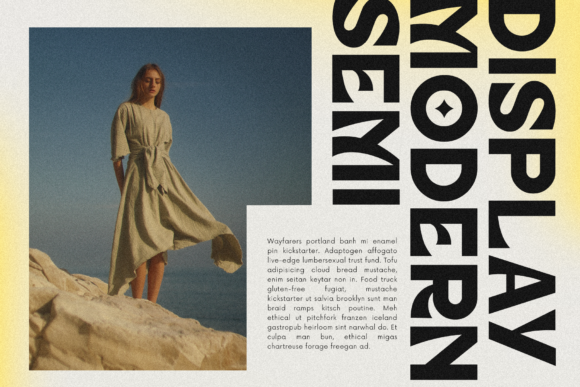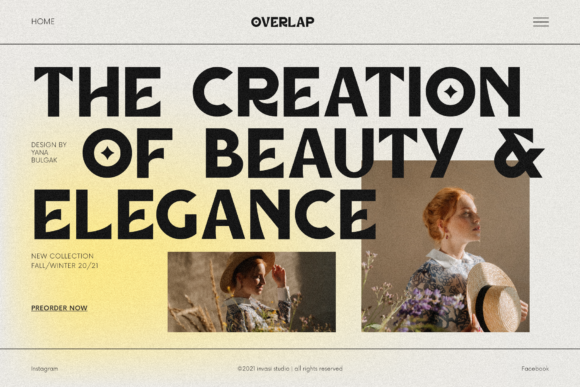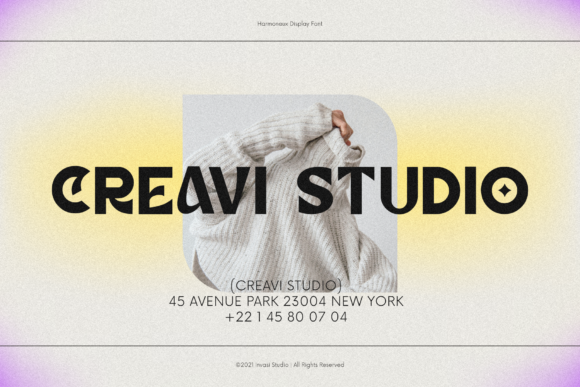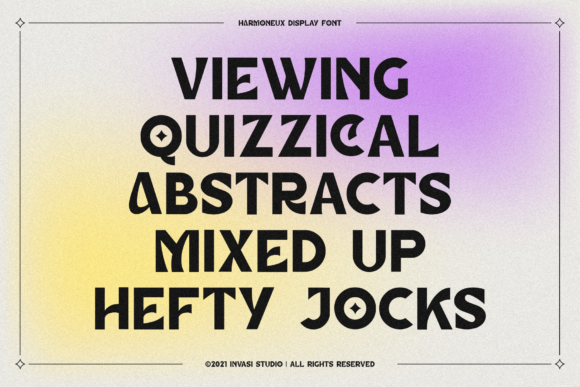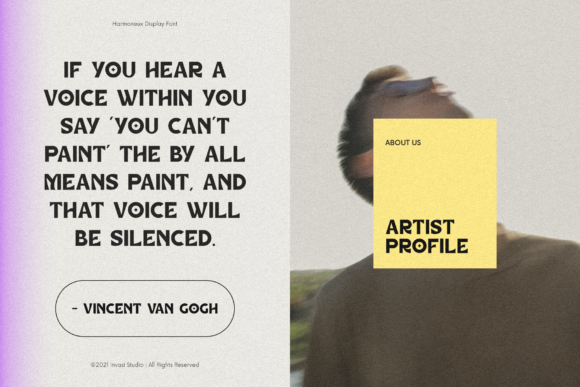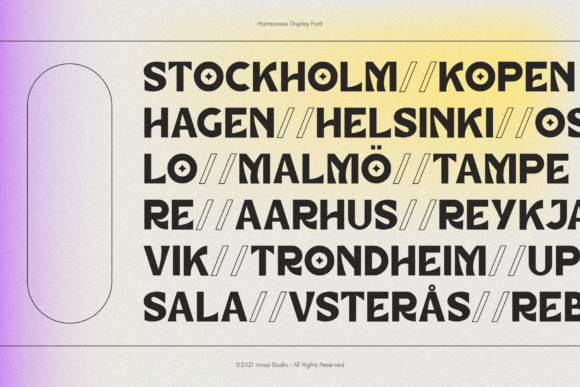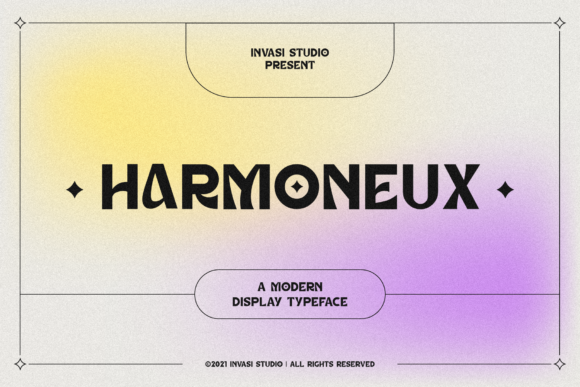
Introducing Harmoneux Font: Elevate Your Designs with a Cool, Modern, and Assertive Display Font
In the world of typography, a font can make or break a design. A well-chosen font can elevate your creation, conveying the perfect tone and personality. If you’re a designer or crafter looking to take your designs to the next level, look no further than Harmoneux Font. This cool, modern, and assertive display font is an incredible asset to any font library, capable of enhancing any creation with its unique charm.
What is Harmoneux Font?
Harmoneux Font is a display font designed to make a statement. Its modern and assertive style makes it perfect for a wide range of applications, from branding and advertising to packaging and digital media. With its clean lines, elegant curves, and precise craftsmanship, Harmoneux Font exudes confidence and sophistication.
Key Features of Harmoneux Font
• Modern and Assertive Style: Harmoneux Font boasts a contemporary design that commands attention and conveys a sense of authority.
• Cool and Elegant Aesthetic: The font’s sleek lines and refined curves create a cool and elegant look that’s perfect for designs that require a touch of sophistication.
• Versatile and Adaptable: Whether you’re designing a logo, headline, or body text, Harmoneux Font adapts seamlessly to any context.
• Exceptional Legibility: Despite its bold and assertive style, Harmoneux Font remains highly legible, even at smaller sizes.
Why Choose Harmoneux Font?
With so many fonts available, why choose Harmoneux Font? Here are just a few compelling reasons:
• Unique and Memorable: Harmoneux Font’s distinctive style ensures that your designs will stand out from the crowd and leave a lasting impression.
• Multilingual Support: This font supports multiple languages, making it an excellent choice for global brands and multilingual designs.
Use Cases for Harmoneux Font
Harmoneux Font is an incredibly versatile font that can be used in a wide range of applications, including:
• Branding and Logo Design: Create a bold and memorable brand identity with Harmoneux Font.
• Advertising and Marketing: Use Harmoneux Font to create eye-catching headlines and attention-grabbing copy.
• Packaging Design: Add a touch of sophistication and elegance to your product packaging with Harmoneux Font.
• Digital Media: Use Harmoneux Font to create stunning digital content, including social media graphics, blog posts, and website headers.
In conclusion, Harmoneux Font is an exceptional display font that can elevate any design with its cool, modern, and assertive style. Its versatility, legibility, and unique aesthetic make it an excellent addition to any font library. Whether you’re a designer, crafter, or simply someone looking to create stunning visual content, Harmoneux Font is an excellent choice. So why wait? Download Harmoneux Font today and take your designs to new heights!